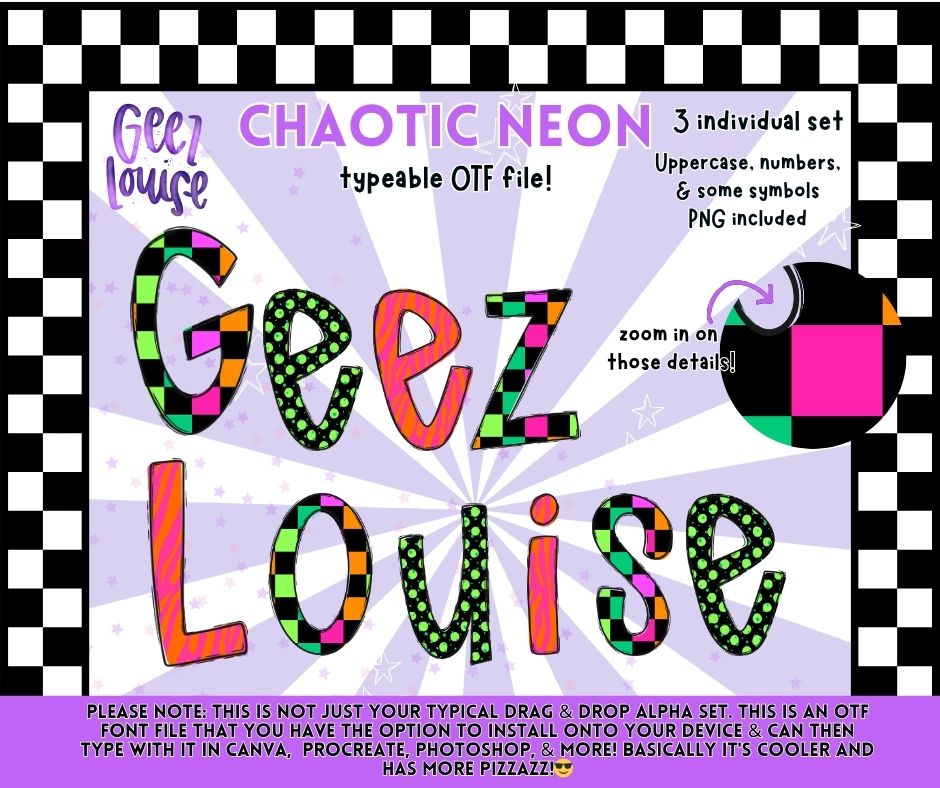
Chaotic Neon OTF Font + PNG Alpha Set | Typeable Retro Neon Font | Uppercase, Numbers & Symbols
Loud, bold, and a little unhinged (in the best way) 🎨⚡
This Chaotic Neon OTF alpha set is a fully typeable font file plus PNG versions, giving you total creative freedom. With bright retro colors, funky patterns, and mixed textures, this set is made to stand OUT.
Perfect for:
Tees • Retro designs • Custom sayings • Bold graphics • Digital projects